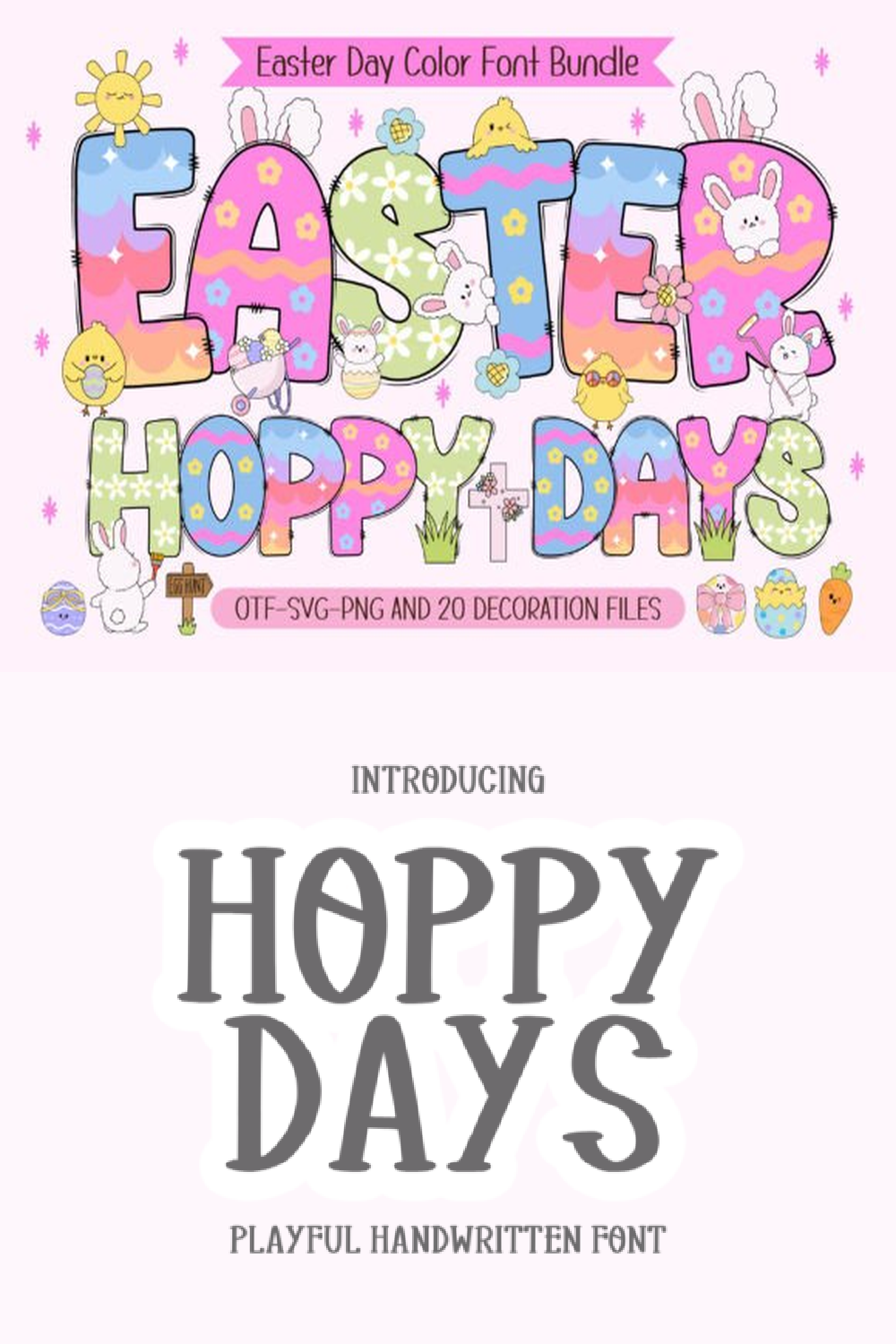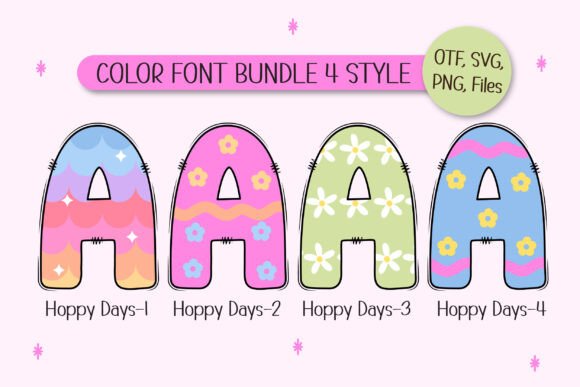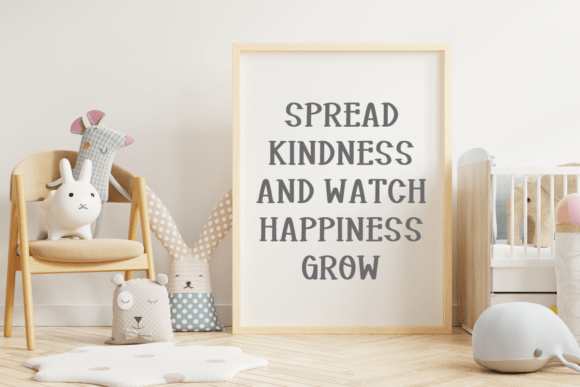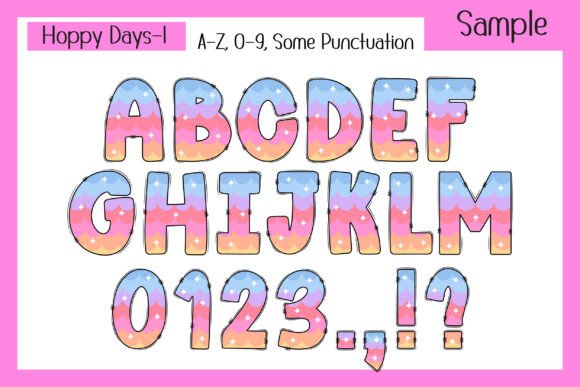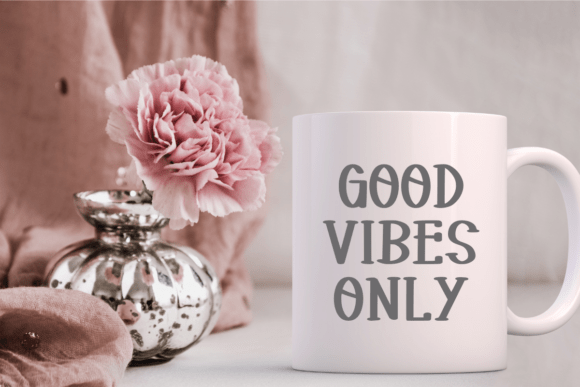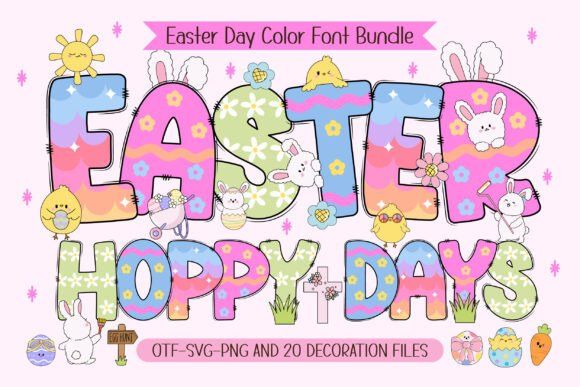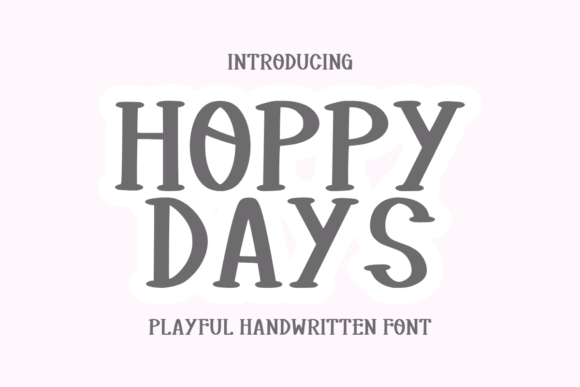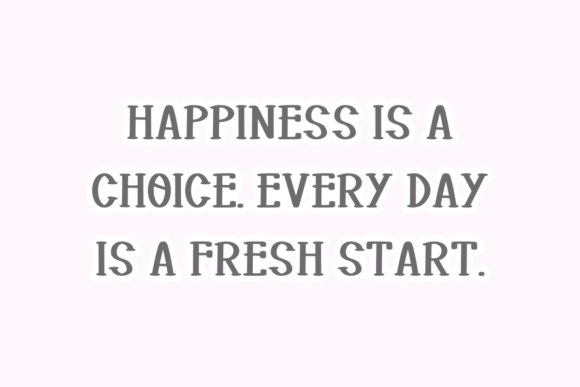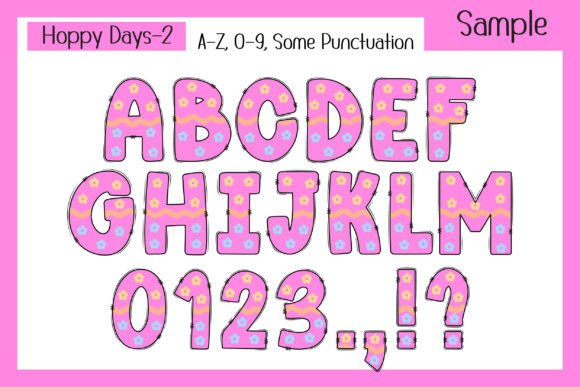
Hoppy Days Font: A Cute Easter Display Font for Cricut & DIY Projects!
About the Hoppy Days Font
Elevate your designs with Hoppy Days Font, a font that combines sophistication with readability. Introducing “Hoppy Days” a playful Easter day theme font designed with bright, joyful colors and a charming Easter egg pattern that brings festive cheer to every project. This 4Color Font is perfectly complemented by 20 adorable Easter Doodle Cliparts, making it an ideal choice for kid-friendly designs that are both funny and cute. Whether you’re crafting Easter Day posters, inspirational quotes, T-shirt designs, custom names, or DIY craft projects, “Hoppy Days” adds a vibrant and cheerful touch that perfectly captures the spirit of Easter and transforms your creative vision into a celebration of the season.